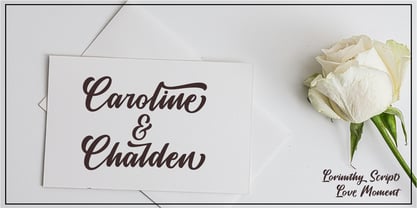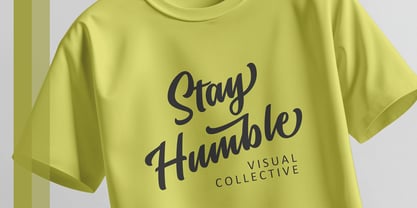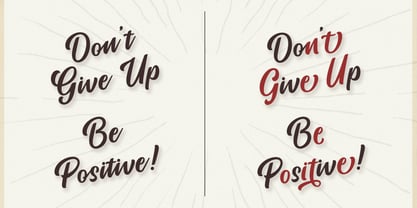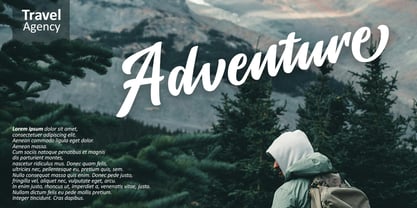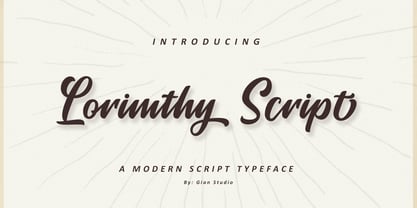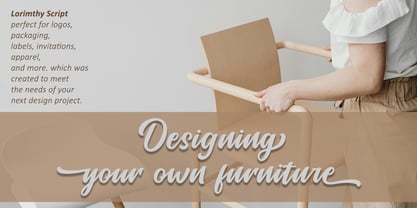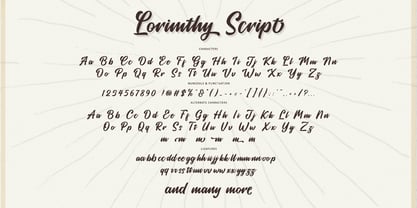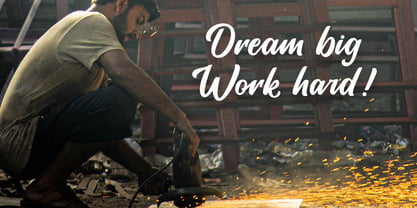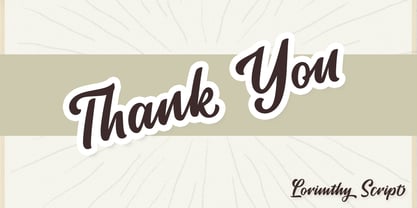
Lorimthy Script
by Gian Studio
The Lorimthy Script Font Family was designed by Yusliana M Isa and published by Gian Studio. Lorimthy Script contains 1 styles. More about this family
Font Lorimthy is a modern calligraphy font with the current handwriting style, this font is perfect for branding, wedding invites, magazines, mugs, business cards, quotes, posters, and more, you can try first if you want to buy this font. To use a variety of flying machines, you need a program that supports OpenType features such as Adobe Photoshop Cs / Adobe Photoshop CC, Adobe Illustrator CS / Adobe Illustrator CC, Adobe Indesign and Corel Draw and many more programs that support If you do not have a program that supports, you can access all the alternate glyphs using Font Book (Mac) or Character Map (Windows) Thanks and happy designing :-) Thank You for purchase! Designers: Yusliana Publisher: Gian Studio